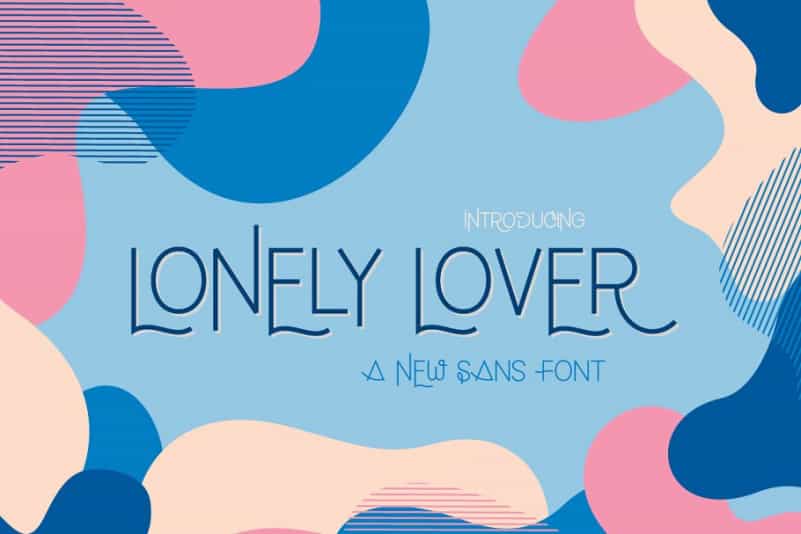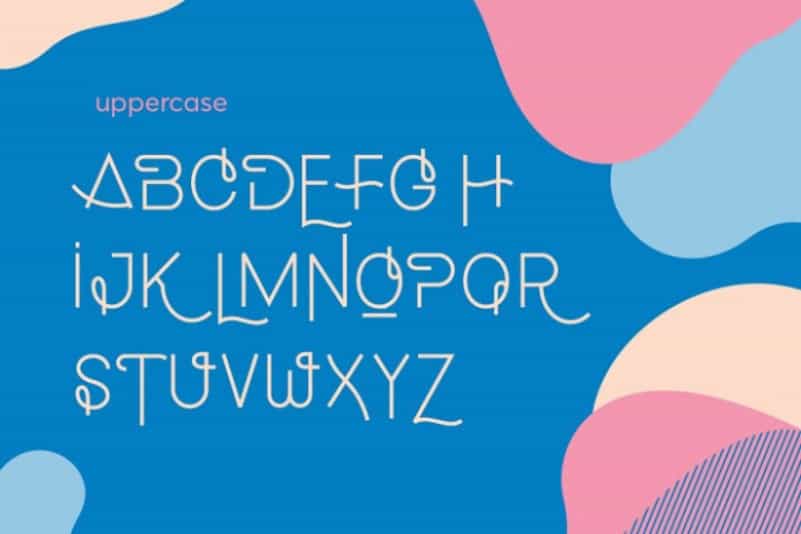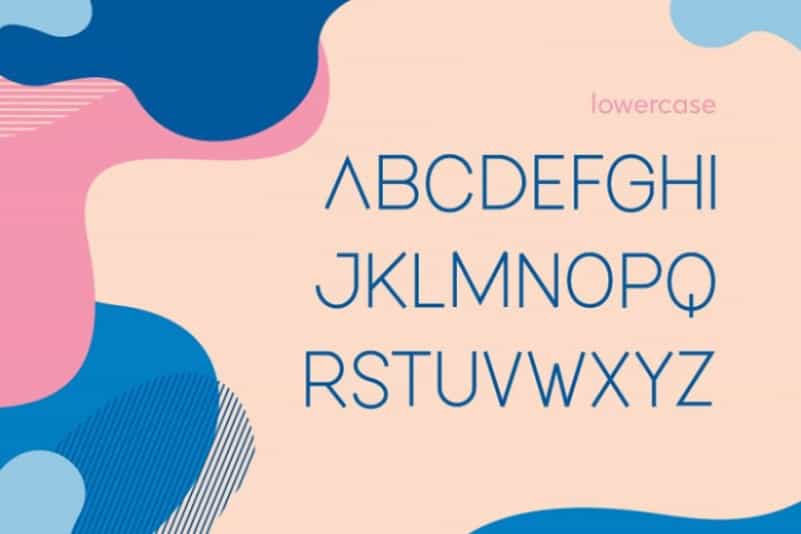
Discover Lonely Lover Sans Font, part of the Sans Serif Display collection—a versatile and unique font perfect for adding a personal touch to your projects. Download it for free and enjoy crafting designs with style, from invitations to social media posts. This font is available exclusively for personal use, giving you the freedom to create without limits. Unlock your creativity with Lonely Lover Sans Font today!